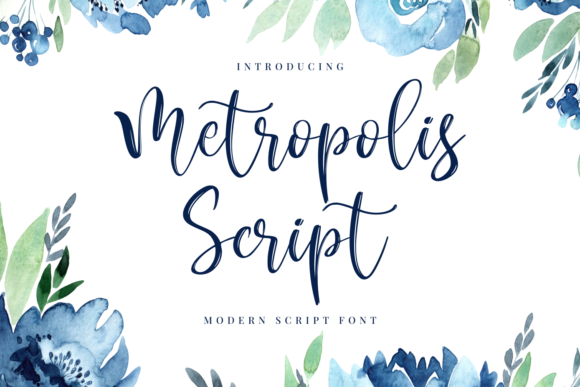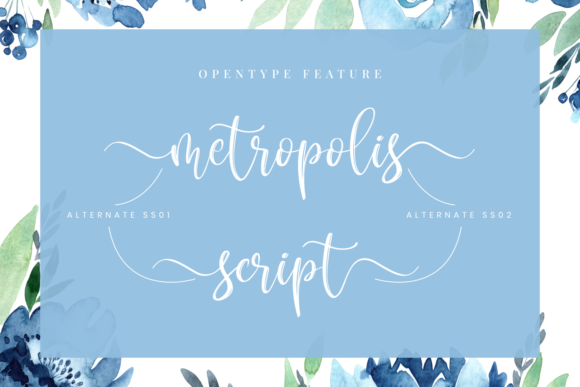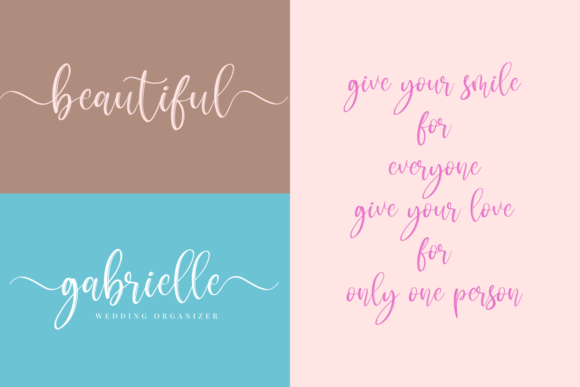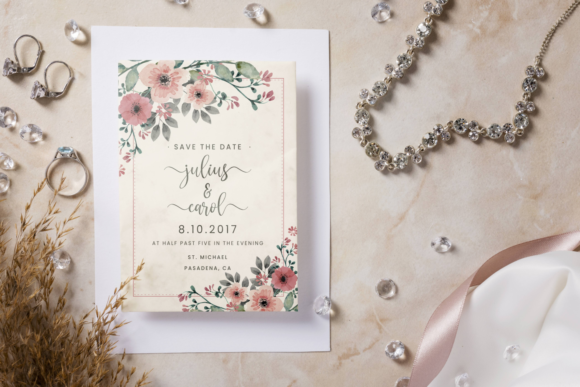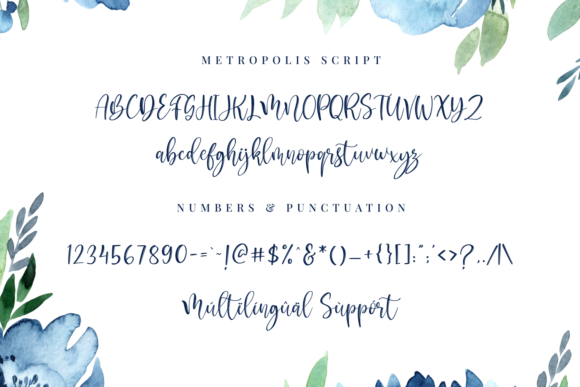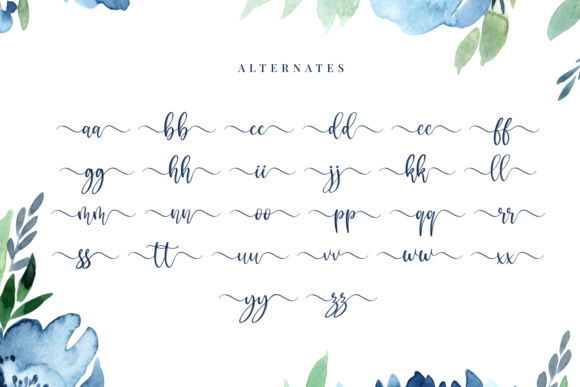
Metropolis Script Font
About Metropolis Script Font
Metropolis Script is a cute and modern handwritten font. It features amazing swashes. Fall in love with its authentic feel and use it to create gorgeous wedding invitations, beautiful stationary art, typography logo, eye-catching social media posts, and cute greeting cards.